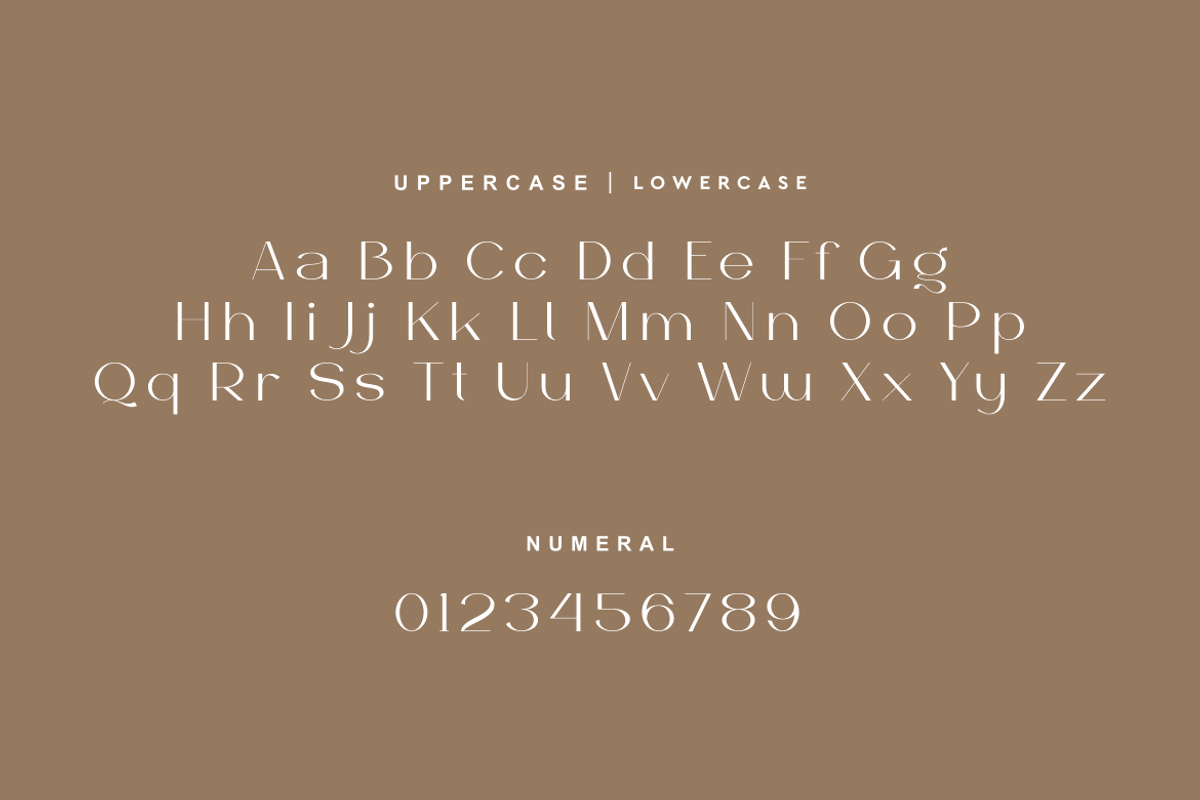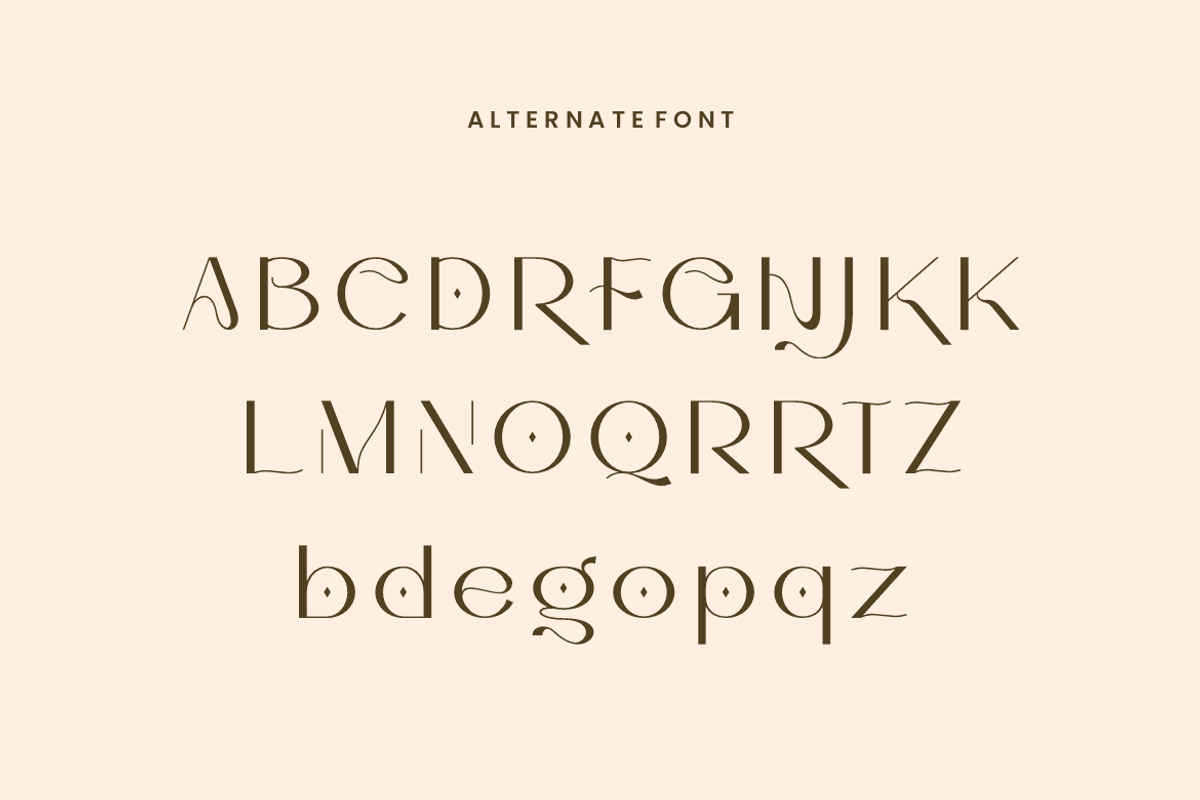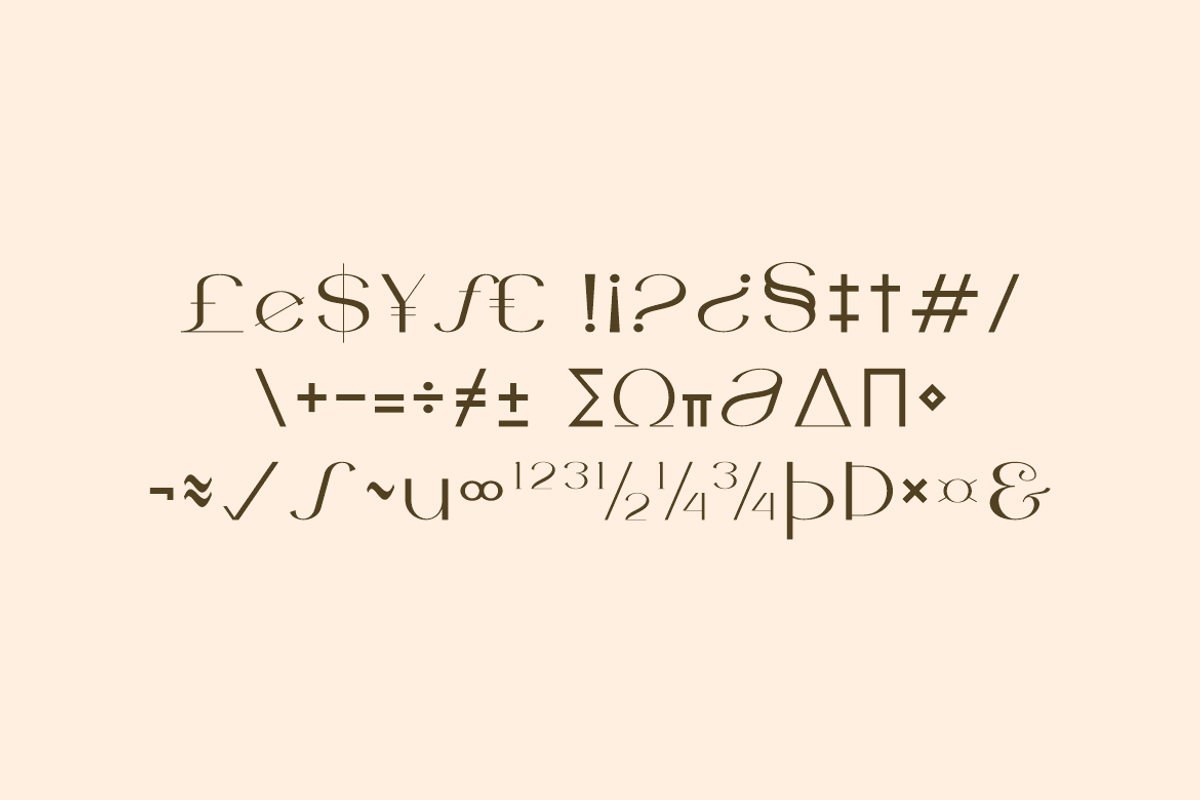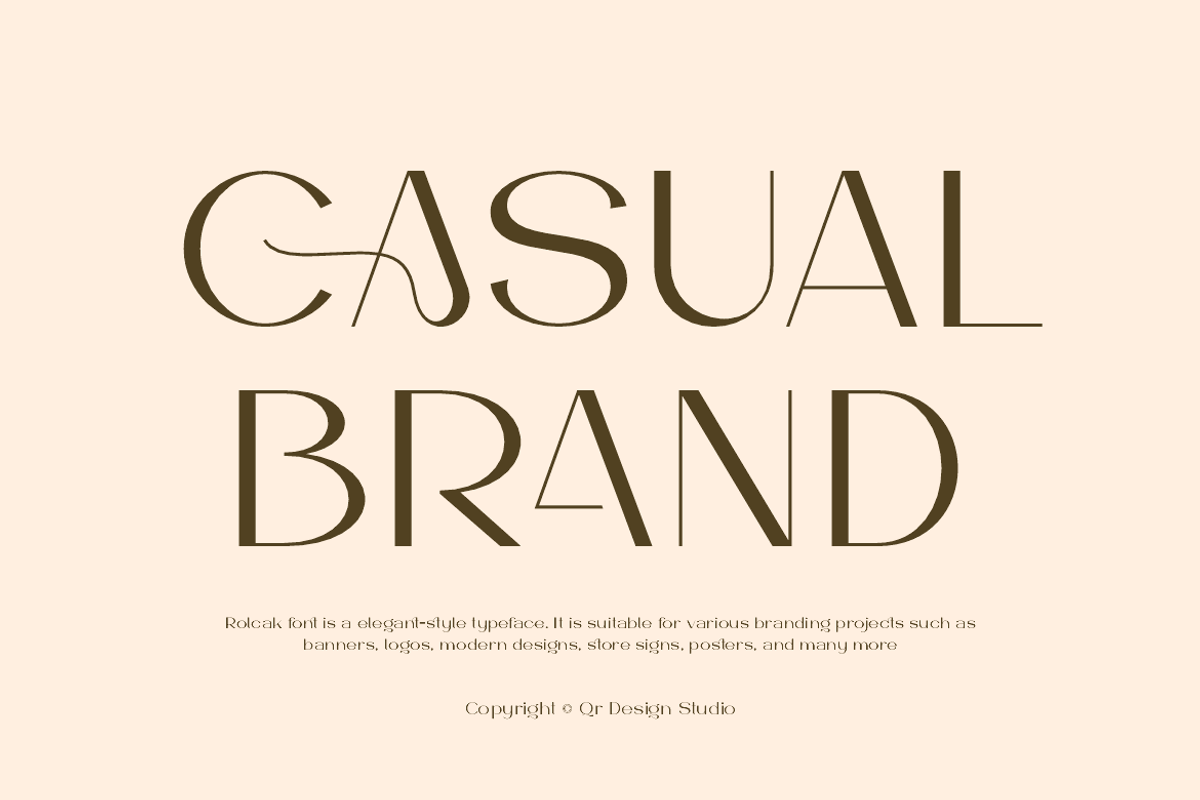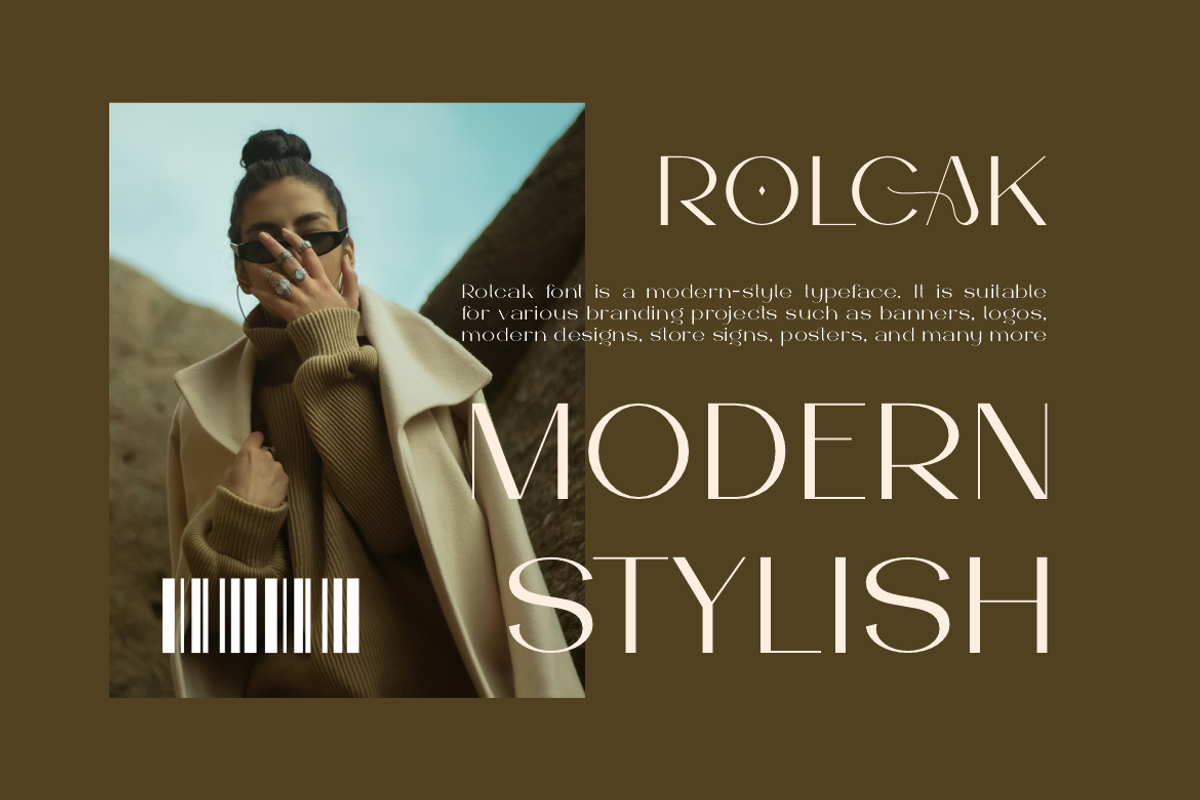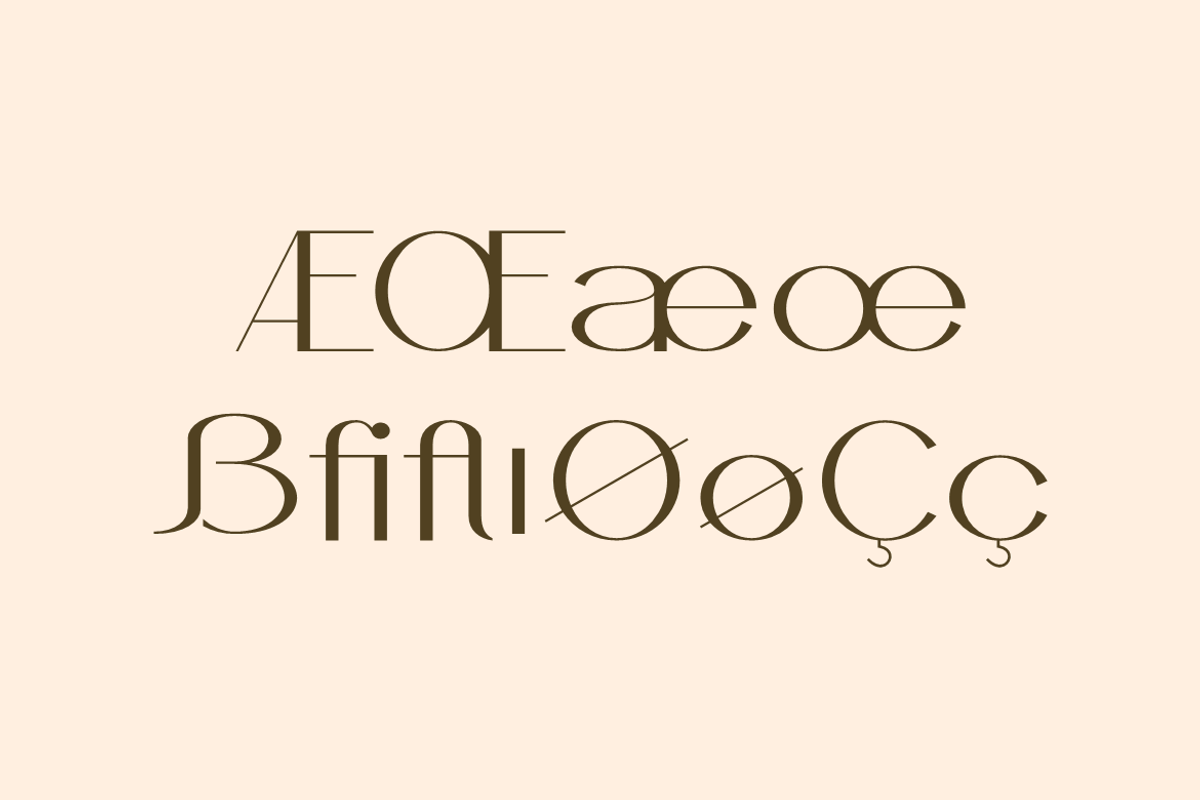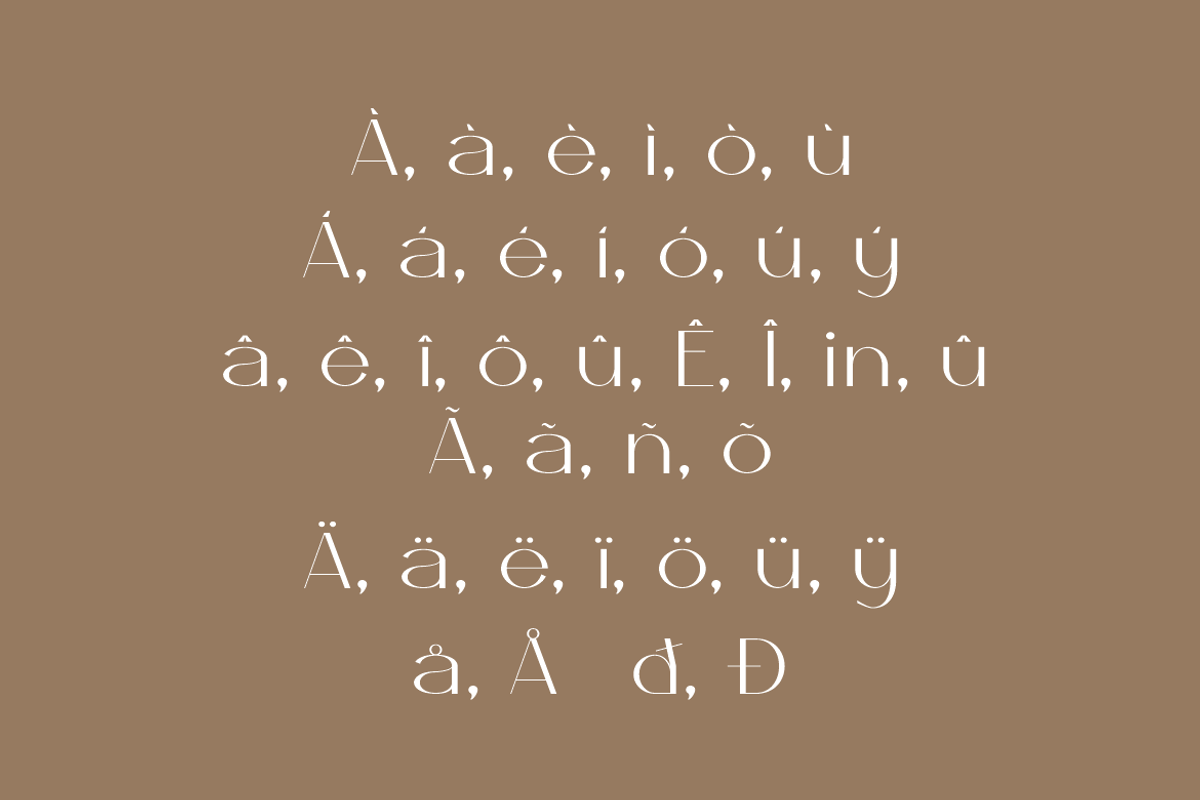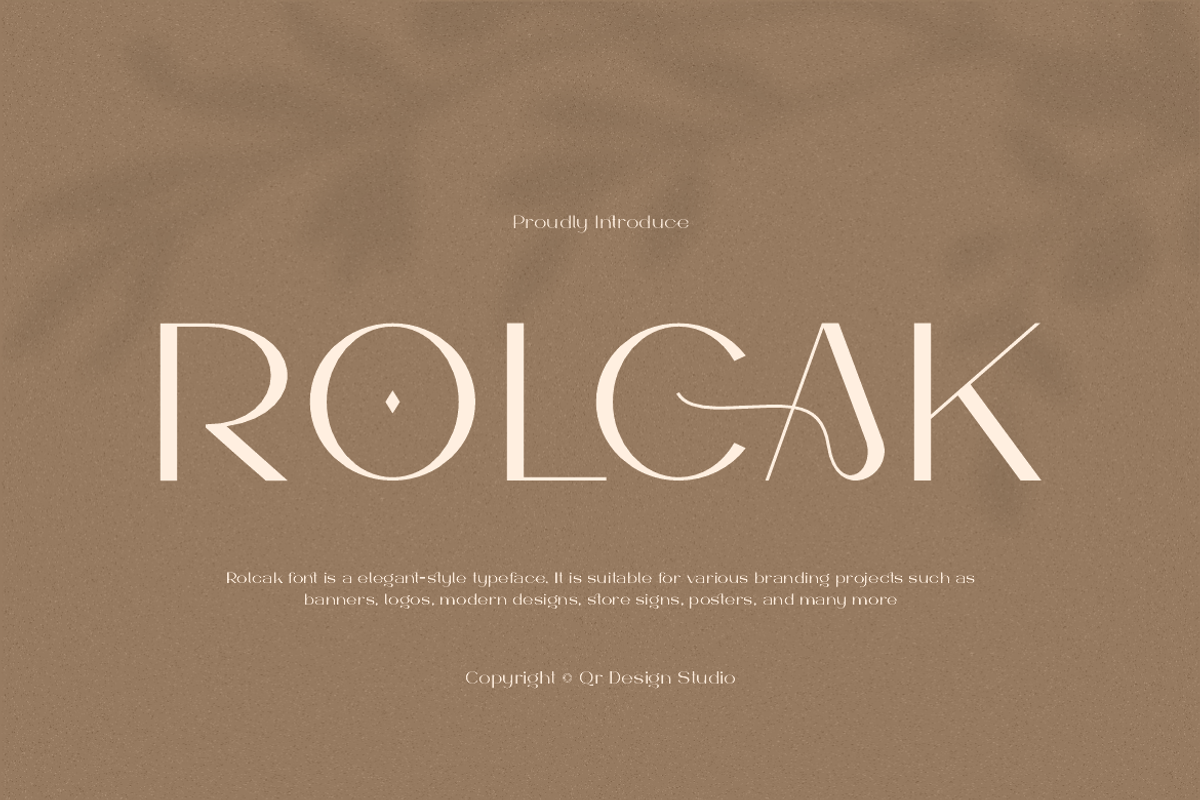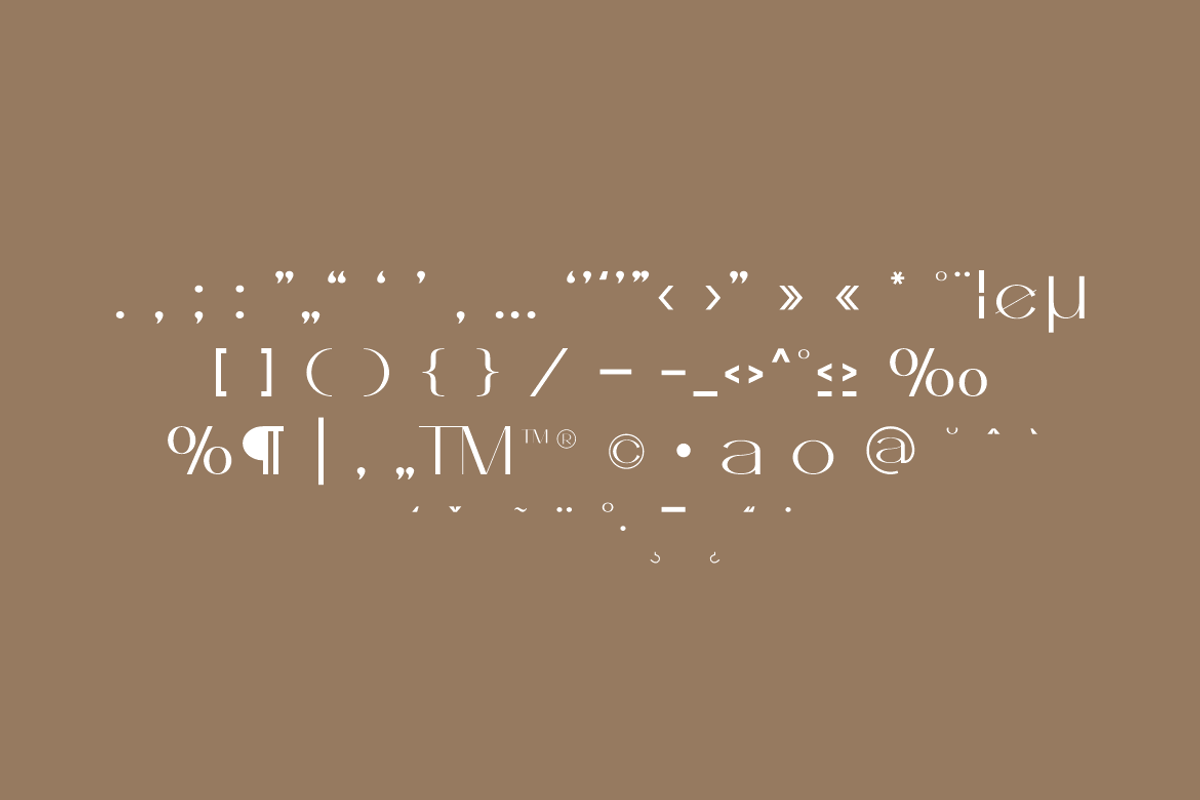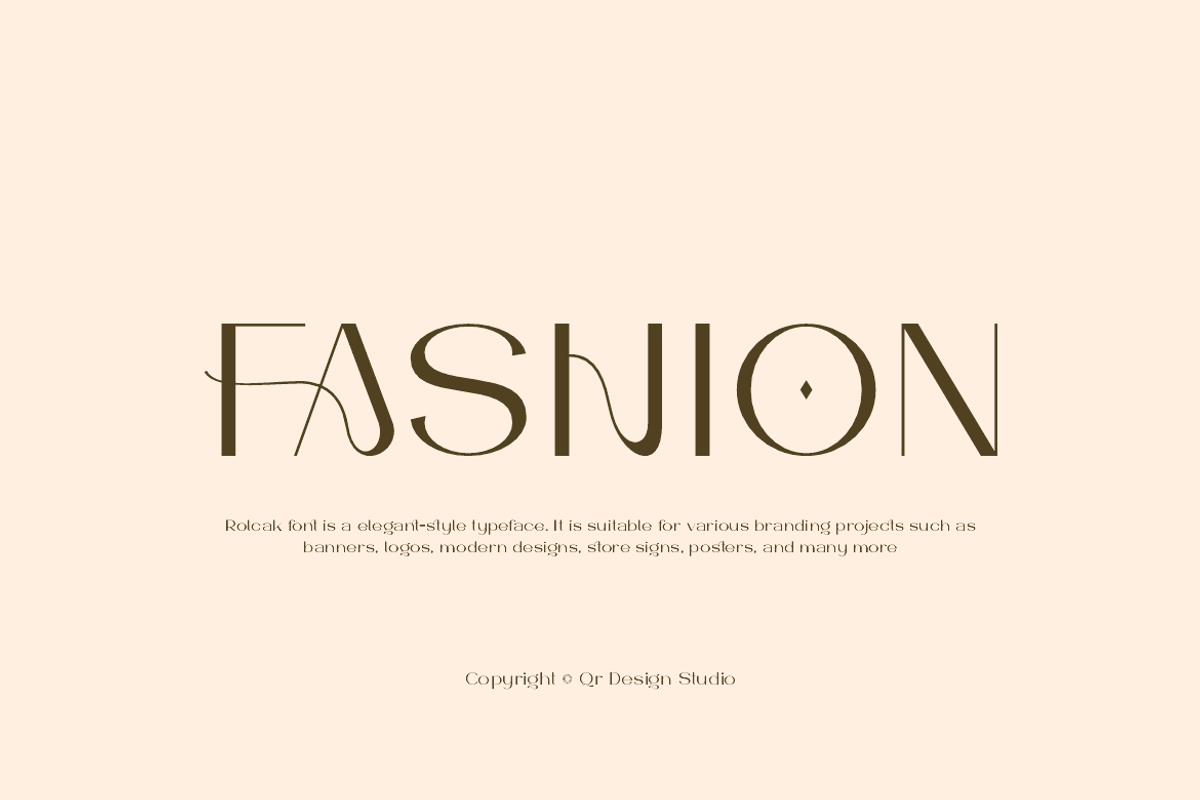
Rolcak - Fashion Brand Font
Rolcak Font is a modern and authentic display typeface.
It’s perfect for various branding projects such as logos, modern designs,
and more. This font stands out beautifully in a wide range of contexts.